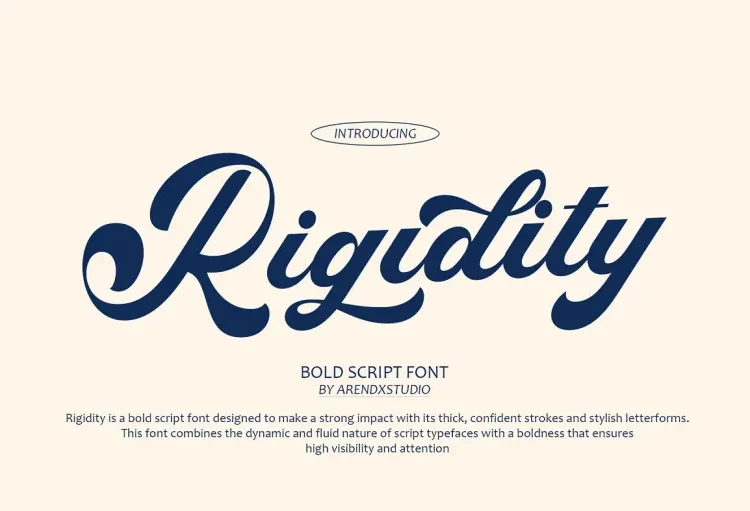
Rigidity Font
Rigidity is a distinctive font style designed to make a strong impact with its bold and stable lines. Ideal for projects where you need to create striking and commanding text, this font combines the essence of a script typeface with a robust, attention-grabbing design. The result is a lively and energetic typeface that stands out in any setting.
Perfect for bold statements, Rigidity is suitable for a variety of design applications, from impactful headlines to eye-catching promotional materials. Its unique character ensures that your text will be both memorable and effective in conveying your message.